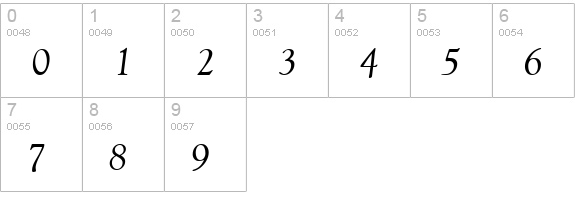
QTOldGoudy Italic Font Details
QTOldGoudy Italic is a distinctive, italic variant in the QTOldGoudy typeface family \xE2\x80\x94 well suited to design and typography projects.
QTOldGoudy Italic is a stunningly elegant font that exudes a timeless charm. With its graceful curves and delicate strokes, this font captures the essence of sophistication and refinement. Its slanted italic design adds a touch of flair and artistic flair to any project, making it the perfect choice for those seeking to add a touch of elegance to their designs. Featuring a unique blend of classic and modern elements, QTOldGoudy Italic strikes the perfect balance between tradition and innovation. Its flowing lines and distinctive letterforms make it a versatile font that can be used for a wide range of applications, from invitations and logos to headlines and body text. One of the most remarkable features of QTOldGoudy Italic is that it is freely available to download at FontsMarket.com. This means that you can access this exquisite font without any cost, allowing you to elevate your designs without breaking the bank. Whether you are a professional designer or a hobbyist, QTOldGoudy Italic offers a world of creative possibilities at your fingertips. With its timeless beauty and effortless elegance, QTOldGoudy Italic is sure to make a lasting impression on any project. Its versatility, combined with its free availability, makes it an invaluable asset for designers of all levels. Download QTOldGoudy Italic today from FontsMarket.com and discover the power of this exquisite font to transform your designs into works of art.